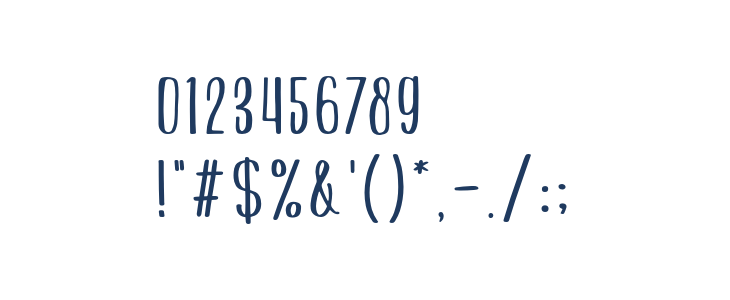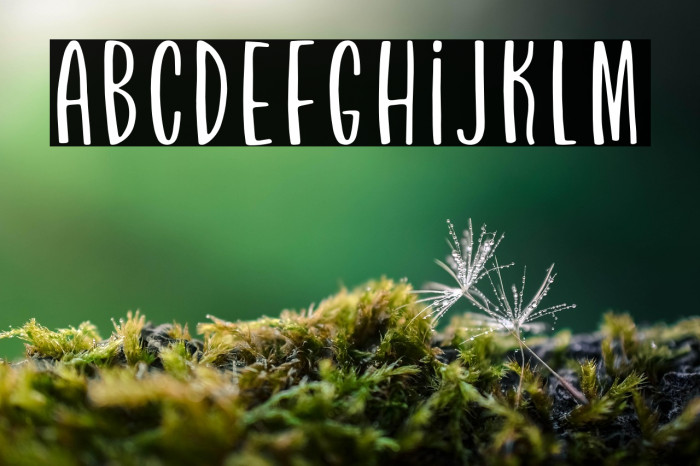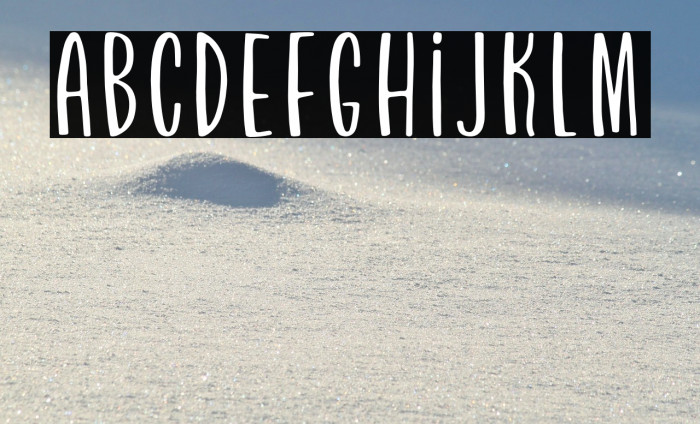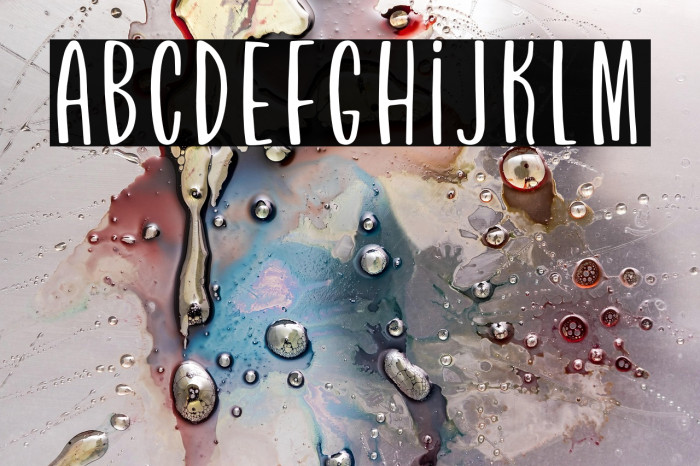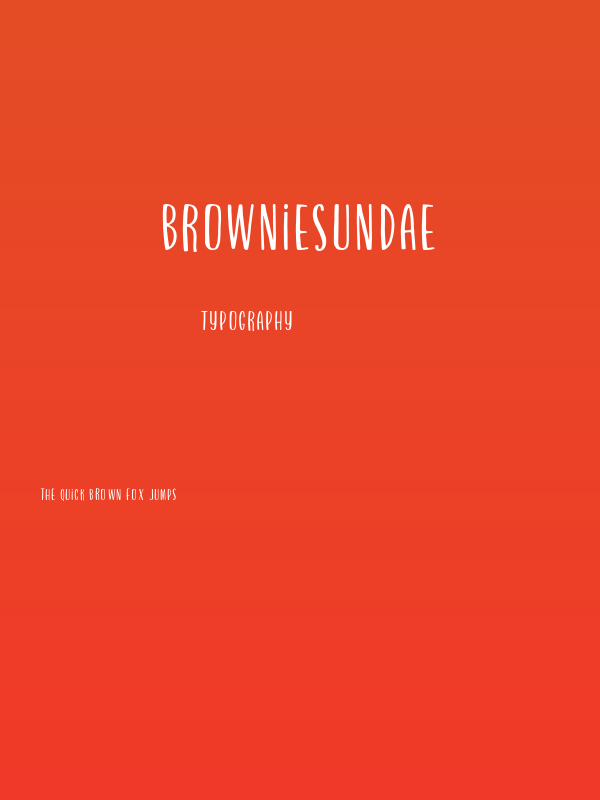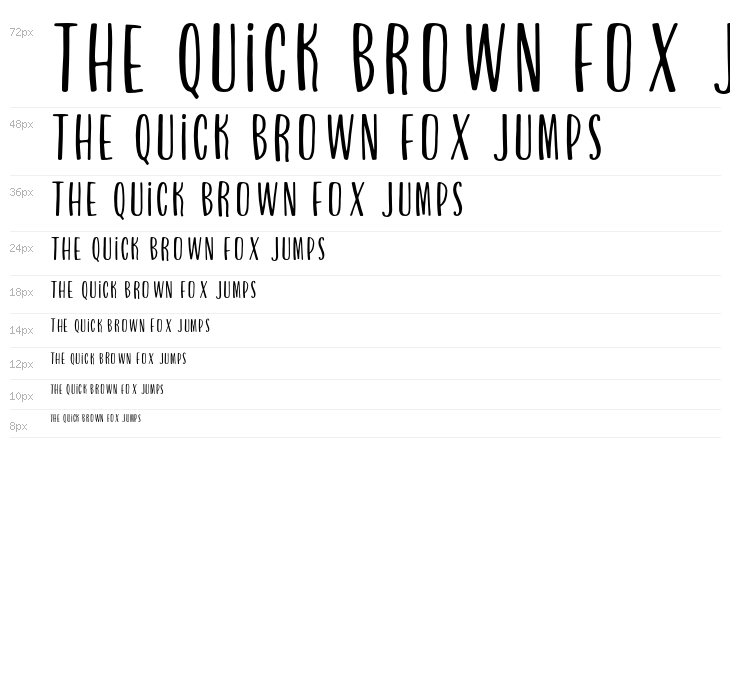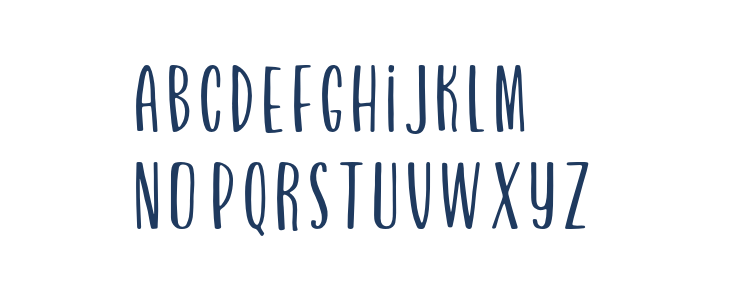
BrownieSundae Font
BrownieSundae Description
This font features a playful and casual handwritten style, characterized by its tall, narrow letters with slightly uneven strokes that add a touch of whimsy. The uppercase and lowercase letters maintain a consistent height, giving it a uniform appearance despite its informal design. The numbers and special characters follow the same playful aesthetic, making it versatile for various creative projects. Its unique charm lies in the subtle irregularities and the friendly, approachable feel it conveys.
| Use Case | Headlines, Logos, Informal text |
| Proposed Projects | Ideal for greeting cards, children's books, playful branding, and social media graphics. |